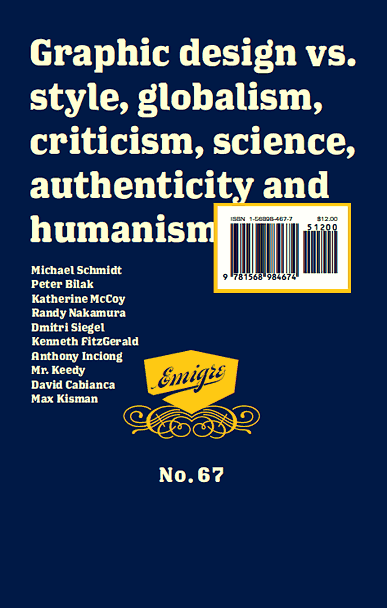
The Story of Los Feliz
Matt: The story of Los Feliz starts with Philip Shtoll's dog. Philip doesn't have the dog anymore and he doesn't live in Los Feliz anymore. He had to give the dog away when he moved to a smaller apartment closer to the beach. He wanted to get his priorities in order, to work less and to surf more, but that's not essential to the story. Let's get back to the dog.
The dog was getting a haircut. This past summer, I was working on a project with Philip that involved photographing some bottles of Coca-Cola, so we stepped out of the office to find some and, since we were going to be out anyway, to pick up his dog from the dog haircut place and take it back to his apartment. The path between the dog haircut place and Philip's apartment happened to cross through a part of Los Feliz that I had never been to before that happened to be home to some amazing typography.
Los Angeles is full of amazing typography; usually on signs, especially on signs that are old, homemade, or damaged. It's not surprising that a lot of the vernacular-inspired type experiments of the past decade originated here. If you want to find some unusual vernacular lettering and make a typeface out of it, the stretch of Santa Monica Boulevard that runs through Los Feliz where Philip and I happened to be driving is a good place to start. The ethnically diverse area consists mainly of small businesses, and, out of necessity, most of the signage is hand-painted. Often, the signs are painted directly on the side of the building. This is the kind of area where you see a tiny building that looks a lot more like a residence than a business, with the words "Hot Chocolate" painted on the side. That's some lady's job, selling hot chocolate from her house.
Los Feliz was inspired by vernacular signage found in the Los Feliz area of Los Angeles.
Philip and I picked up the dog and went back to work. A week later, I returned to the area with my girlfriend to take pictures. On this visit, I happened to find a place called LOS FELIZ AUTO PARTS & SERVICE. The letters painted on and around this business were fantastic. It was the kind of typography that some people call crude, but it wasn't crude at all. A lot of care was put into each letter. The lettering exhibited several artistic flourishes - the kind that someone who went to design school just wouldn't think of. I thought it would make a good typeface. At the least, I knew it was an interesting typographic puzzle. Take these letter forms and normalize them so that they hang together in text and at the same time preserve all the odd details that make them interesting. I'm not a very good type designer, but I think Christian Schwartz is, so I took some pictures of LOS FELIZ AUTO PARTS & SERVICE and sent them to him in Boston.
Christian: I live in Boston, which is a dense, vertical city. It's nothing like Los Angeles. My first experience with Los Angeles was in the fall of 2000, when I went out to visit Matt and his girlfriend for a week. I grew up in the Northeast, so my idea of a city is a tall and organized concentration of people. The chaotic sprawl of Los Angeles is the exact opposite.
I've spent the past 10 years trying to learn the "right" way to draw type. I've been lucky enough to work under some of the most respected type designers in the world; people like Tobias Frere-Jones, Erik Spiekermann, and David Berlow. Before starting work on Los Feliz, I was finally getting confident in my ability to follow the traditional ways of building a typeface. When Matt showed me the LOS FELIZ AUTO PARTS & SERVICE sign, I realized it was an excellent time to take everything I've learned and turn it inside out to ask myself "If I didn't know what I was doing, what would I do?," and to forgo tradition in favor of expressiveness. Mismatched stroke endings on the lowercase italic s - why not? In short, I wanted to design a typeface that relates to my previous work the way that Los Angeles relates to a city like Boston.
The first step was to keep as many of the fabulous details from the original as possible, resisting the urge to tone them down. The original lowercase r is a good example of this. There's no reason why it should be detailed the way it is, with the strange little ear added to the ball. I never would have come up with this on my own and it's absolutely perfect. As I continued drawing, I tried to let these inconsistencies serve as the thread that held the whole typeface together. I wanted the different styles of the family to have only casual relationships to one another, with similar basic structures clothed in different weight and serif treatments.
Matt: At this point in the story, the typeface, now christened "Los Feliz," returned to Los Angeles via e-mail. Christian continued to send working versions my way for the next few months, and in exchange I gave him my feedback. I said things like, "The lowercase g is probably too typographic. Maybe you should try something a little more 'weird,'" or, "I love the capital Q, don't change a thing." We racked up some significant long-distance charges talking about italics.
For literally hundreds of years, people who design typefaces have adhered to certain conventions when creating an italic. For example, when William Caslon designed his italic, he didn't just take the lowercase a from the roman and give it a jaunty slant. Instead, he followed established conventions of creating an italic, changing the two-story a to a one-story a, giving the lowercase f an elongated tail, etc. Christian is familiar with these conventions. The artist who painted the LOS FELIZ AUTO PARTS & SERVICE sign probably isn't.* Yet many of these conventional flourishes appear in the finished typeface. Los Feliz evolved into an experiment in balancing typographic convention with hand-drawn exuberance. Nowhere is this balance more precarious than in the italic. For this reason, I feel that the italic is a good meter for the success or failure of Los Feliz as a typeface, or at least as an answer to a typographic puzzle.
Rudy: My friend Jeffery lives in a house on a hill in Silver Lake in Los Angeles, and when you stand on his deck you look out over Los Feliz. "It's where people like Madonna and Brad Pitt have second or third homes," he once told me as we were looking out over a lush green area that spread out indefinitely. In Los Angeles everybody knows where the stars live or have lived. It imbues everything with a faint shine of importance. I live in Berkeley. My neighbor's name is Wavy Gravy. Mr. Gravy is a counterculture figure from the 60s who used to hang out with Ken Kesey and his Merry Pranksters. Which brings me to Christian's typeface.
* Our initial attempts to locate the name of the sign painter resulted in many dead ends. A few months after Los Feliz was released, Los Angeles magazine ran a short story on the typeface, and was able to find out that the original letters that inspired the Los Feliz typeface were painted by Cosmo Avila.